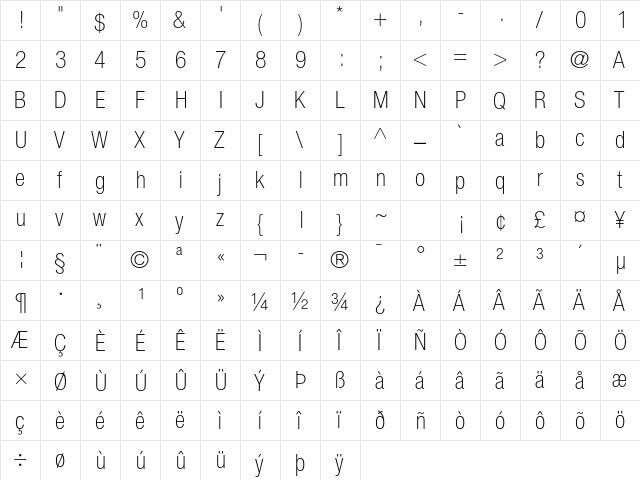
Helvetica Neue LT Std 37 Thin Condensed Font Preview
| Style | 37 Thin Condensed |
| Designer | Linotype Staff |
Design Context for Helvetica Neue LT Std Typeface
Helvetica Neue LT Std offers clean, dependable letterforms without strong stylistic allegiance, making it a practical choice for designers who need flexibility. The delicate stroke weight brings airiness and refinement to layouts. The condensed width makes it efficient for tight spaces without sacrificing legibility.